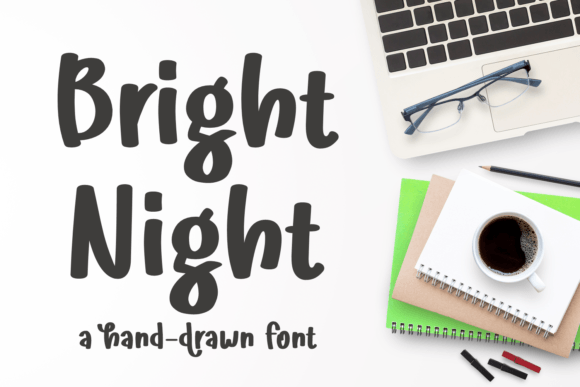
Behold! Enter the world of Bright Night, a calligraphy script typeface that radiates charm and jovial vibes. Its enchanting strokes dance with boldness, adding a touch of whimsy to every word you weave. Crafted with precision by Situjuh, Bright Night is the epitome of creative expression, ready to transform your designs into captivating works of art.
This font family exudes joy and playfulness, making it the perfect companion for all things whimsical. Whether you're designing cartoon-themed masterpieces, creating games that spark imagination, crafting heart-warming quotes, or developing eye-catching titles and brand names, Bright Night is your go-to font. Let your creativity shine with book covers that leap off the shelves, posters that draw attention from afar, or any artistic endeavor craving a joyful touch.
With Bright Night, you can bid farewell to ordinary and embrace extraordinary. Its unique style adds a spark of delight to t-shirts, transforming them from ordinary attire into bold statements of individuality. From playful slogans to eye-catching graphics, Bright Night breathes life into your designs, ensuring they leave a lasting impression.
But Bright Night's charm doesn't stop there. Its versatility extends beyond the realm of t-shirts. Whether you're crafting logos that exude warmth and friendliness, designing playful packaging that captures hearts, or creating social media graphics that spark engagement, Bright Night is your secret weapon. Its ability to add a personal touch to any project makes it a must-have for designers seeking a font that resonates with audiences.
So, embark on a design journey like no other with Bright Night. Its magical aura will infuse your creations with joy, making them irresistible to anyone who lays eyes on them. Let Bright Night be your muse, your guiding light in the world of creativity, and watch as your designs transform into beacons of happiness and delight.